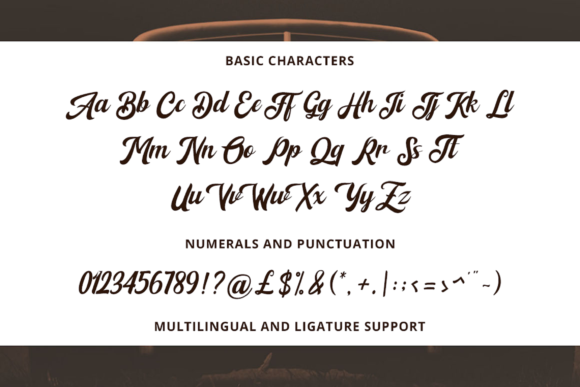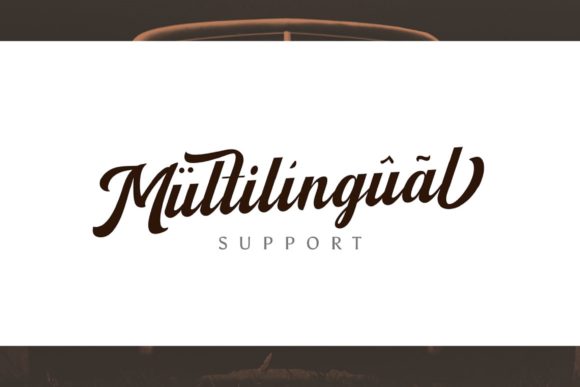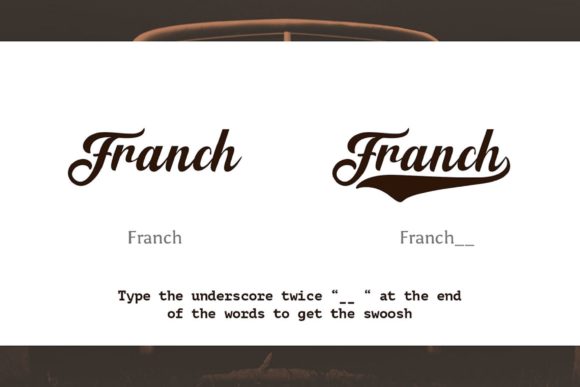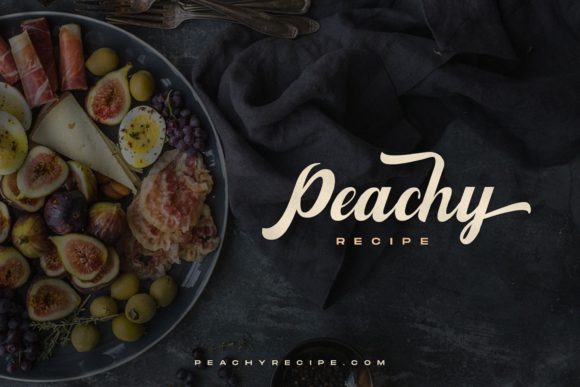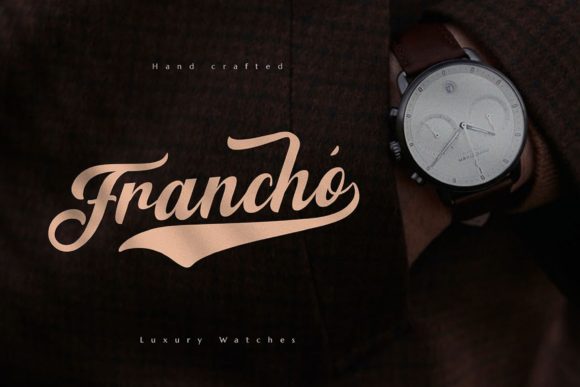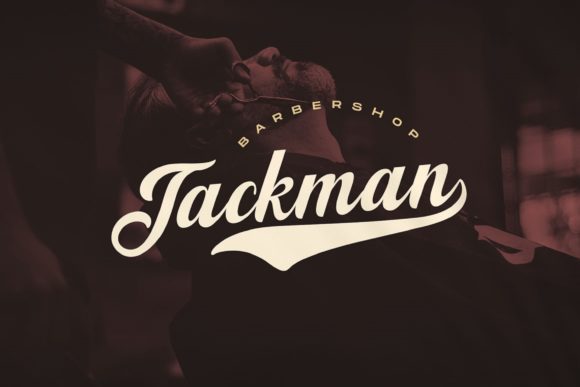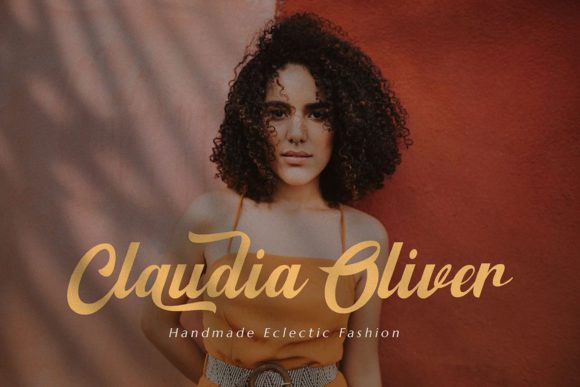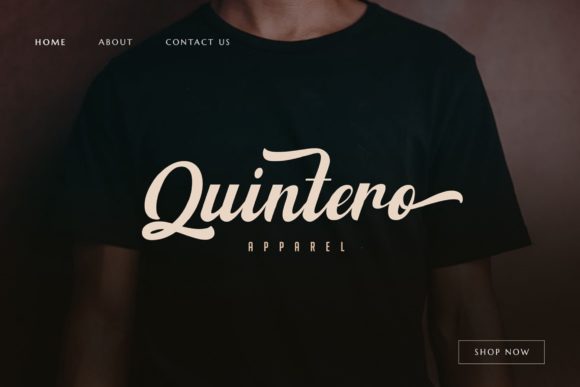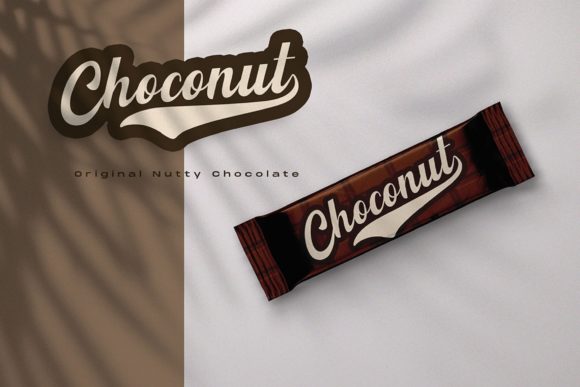
Fenway Font
About Fenway Font
“Fenway” is a unique and flowing handwritten font that stands out with its vintage style. Its distinct and nostalgic charm makes it a versatile choice for a wide range of design projects. Here are the key features that make “Fenway” a standout font:
Vintage Appeal: The vintage style of “Fenway” font adds a touch of nostalgia and old-world charm to your designs. It evokes a sense of classic elegance, making it perfect for projects that require a vintage or retro aesthetic.
Unique Flowing Typography: The flowing and handwritten nature of “Fenway” font gives your text an organic and authentic appearance. It feels as if each letter has been carefully handcrafted, adding a personal and artistic touch to your designs.
Versatility: “Fenway” is a highly versatile font that adapts well to various design contexts. It can be used in both formal and informal settings, making it suitable for a wide range of projects, including branding, packaging, social media posts, invitations, and more.
Timeless Design: The vintage elements of “Fenway” font contribute to its timeless design, ensuring that it remains relevant and visually appealing for years to come. It brings a sense of enduring style to your creative projects.
Characterful Glyphs: The characters in “Fenway” font have a distinctive and characterful appearance. Each letter has its own unique charm, which adds visual interest and personality to your text.
Natural Flow: The natural flow of “Fenway” font’s lines and curves creates a harmonious and pleasing text arrangement. It feels effortless and free-spirited, making it a great choice for designs that seek to evoke a relaxed and welcoming atmosphere.
Vintage Script: As a vintage script font, “Fenway” can add a touch of handcrafted authenticity to your designs. It can be used to create custom signatures, logos, or personalized messages, giving your work a bespoke feel.
Artistic Flair: The flowing and unique style of “Fenway” font brings an artistic flair to your designs. It can be used as a focal point or decorative element in your layouts, enhancing the overall visual impact.
Aesthetic Coherence: “Fenway” font maintains aesthetic coherence throughout its characters, ensuring that they blend seamlessly together. This feature allows your text to look well-composed and visually appealing.
Emotional Connection: The vintage and handcrafted look of “Fenway” font can evoke feelings of nostalgia and warmth, creating an emotional connection with your audience.
In conclusion, “Fenway” is a unique and flowing handwritten font with a vintage style. Its versatility, natural flow, characterful glyphs, and timeless design make it an excellent choice for a wide range of design projects. Whether you’re aiming for a nostalgic vibe or seeking to add artistic flair to your work, “Fenway” offers a distinct and charming typographic solution that will surely captivate and inspire your audience.